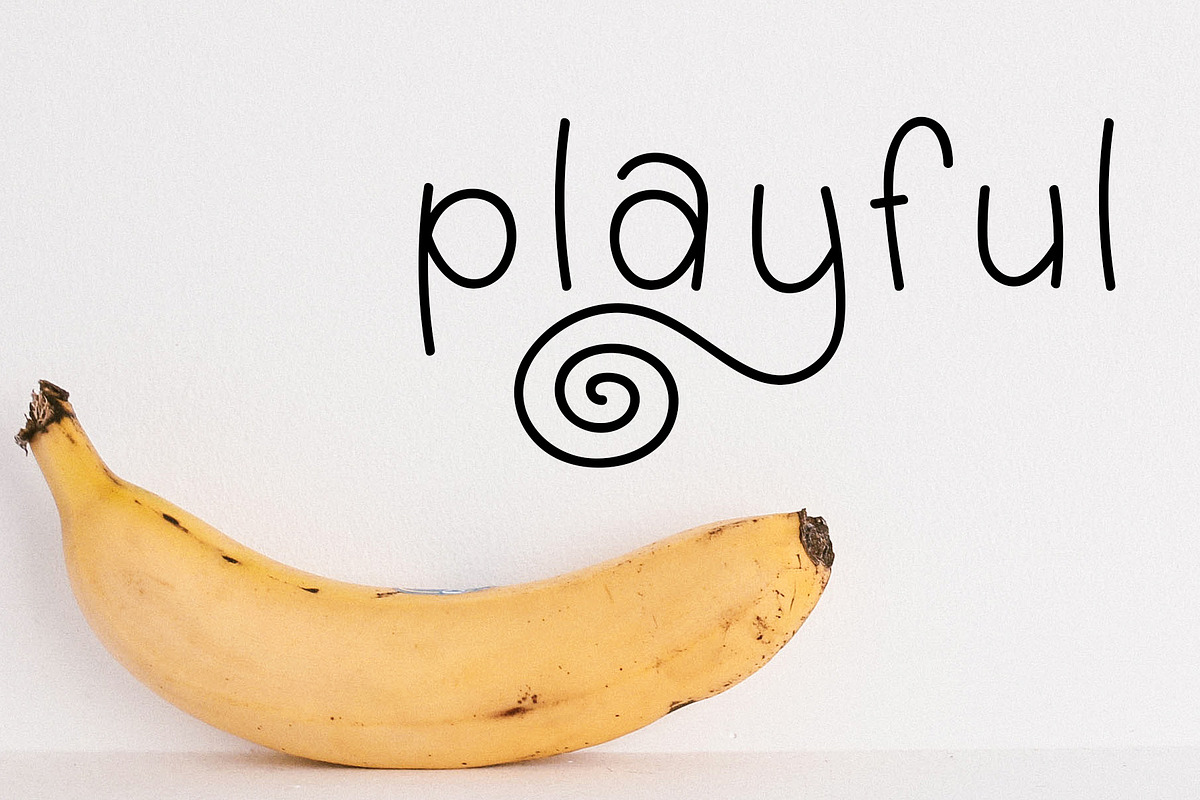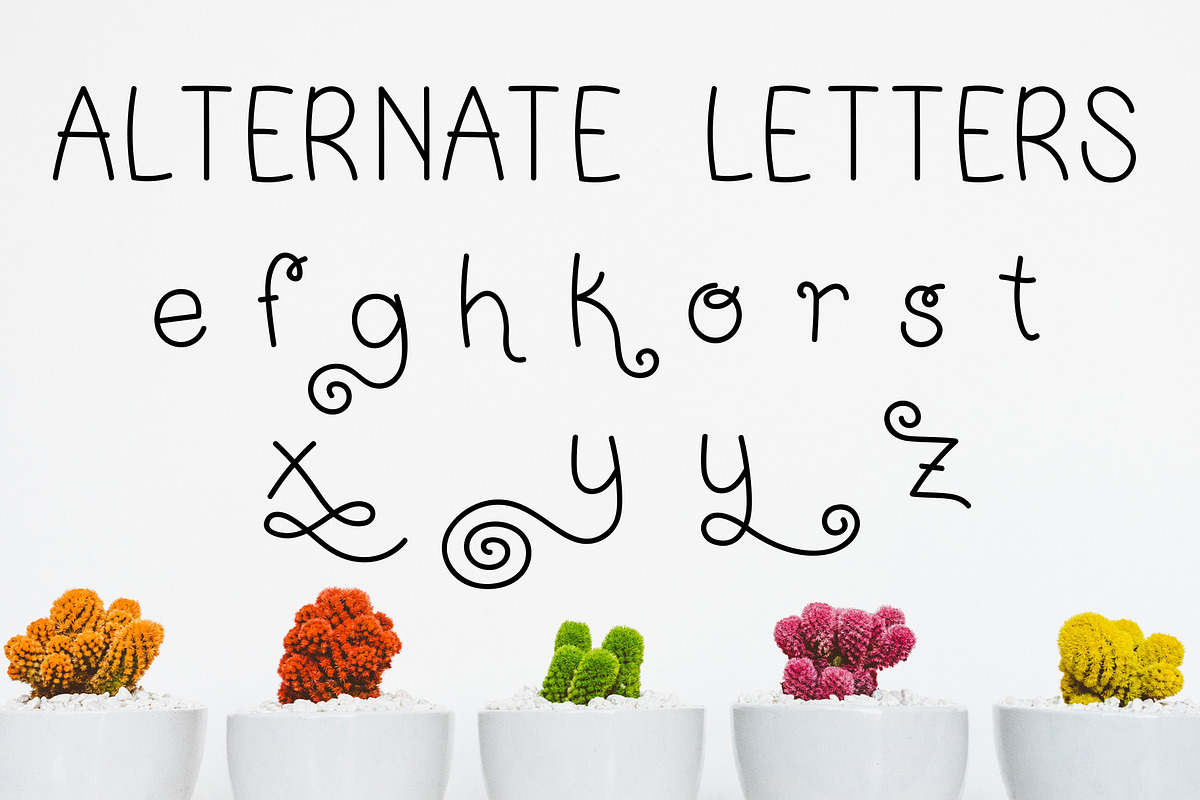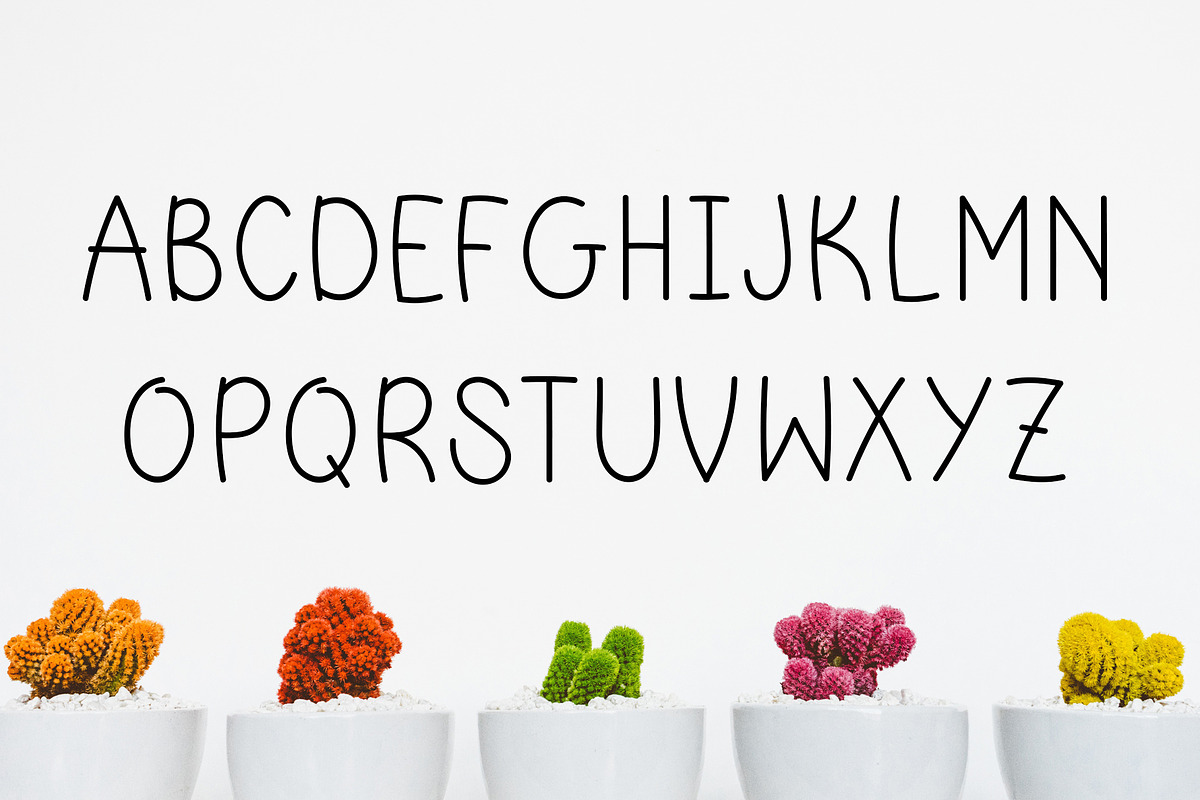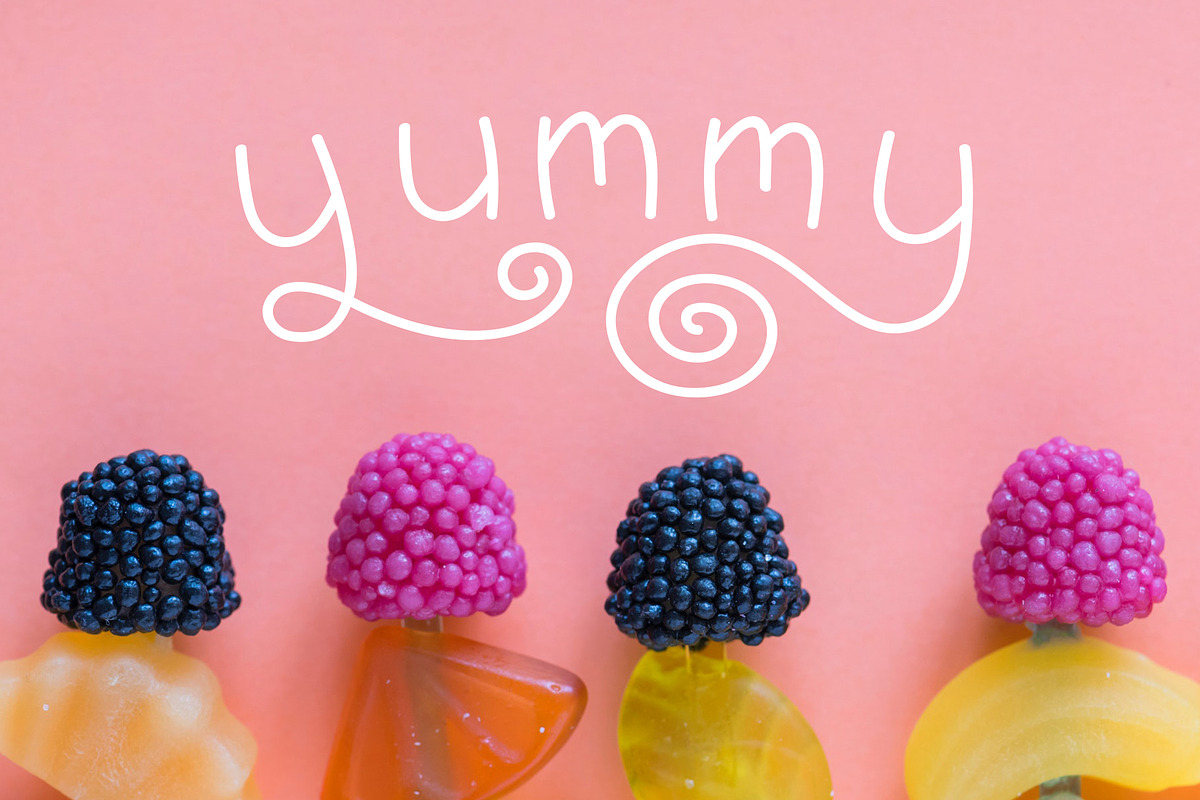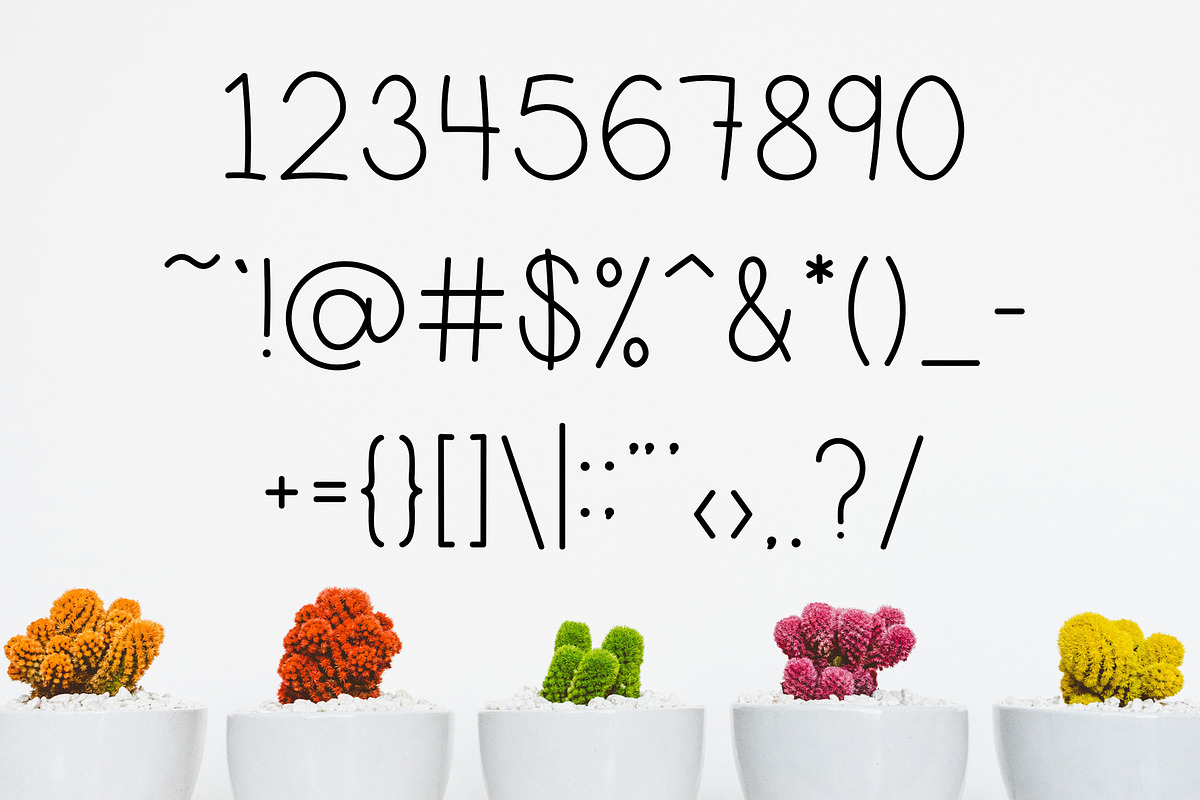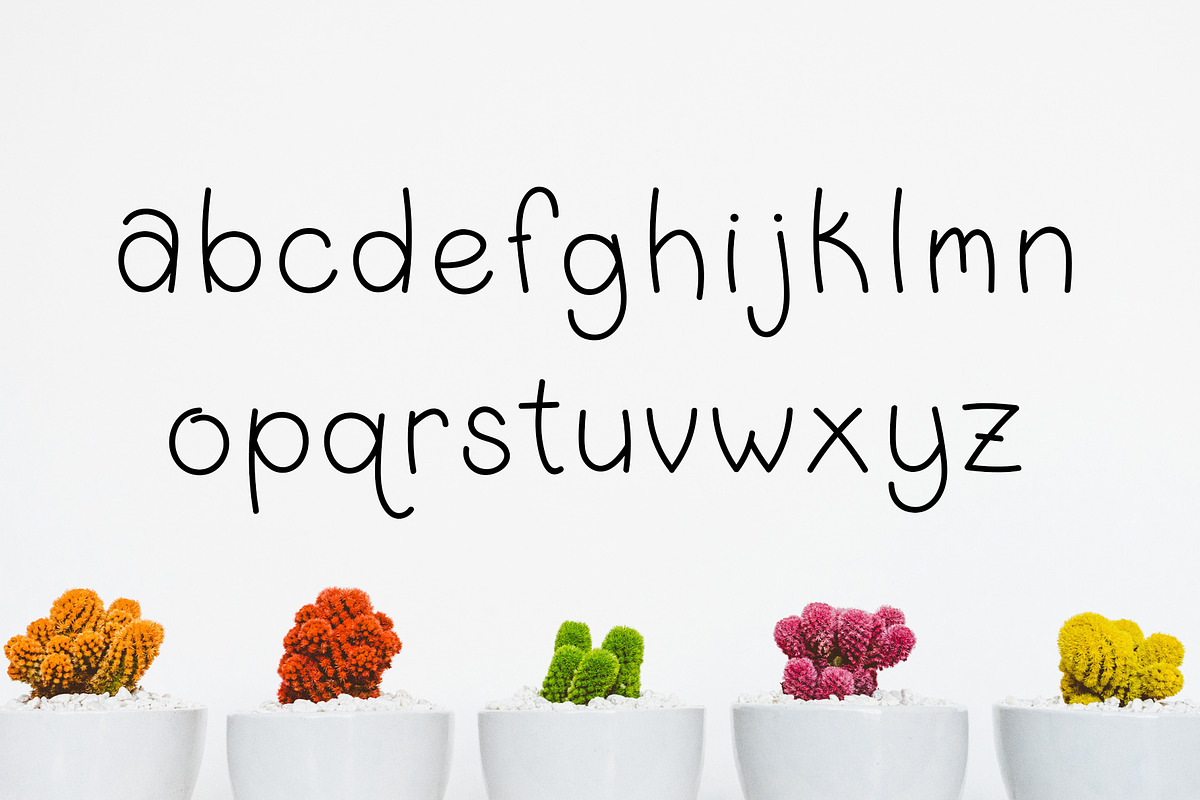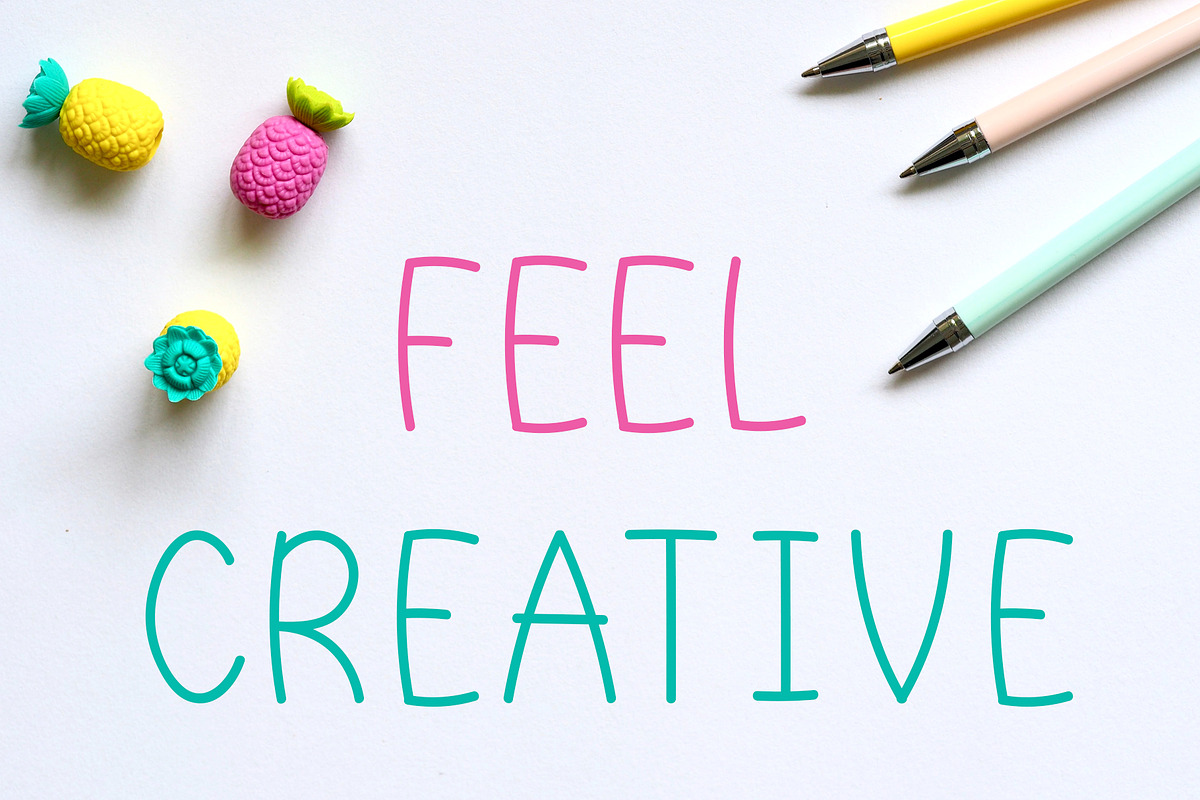
Imagine Zany: a playful font
Imagine Zany combines professional designs with playful vibes! This font allows your inner child leak through your creations and spread some positive fun everywhere! Take a peek at this font, and imagine all the zany designs you can create with this!
Feel free to browse through the photographs to see the full alphabet, alternate letters, and some fun designs!
- Alternate letters are included in this font, which gives you more freedom to make your design extra fun!